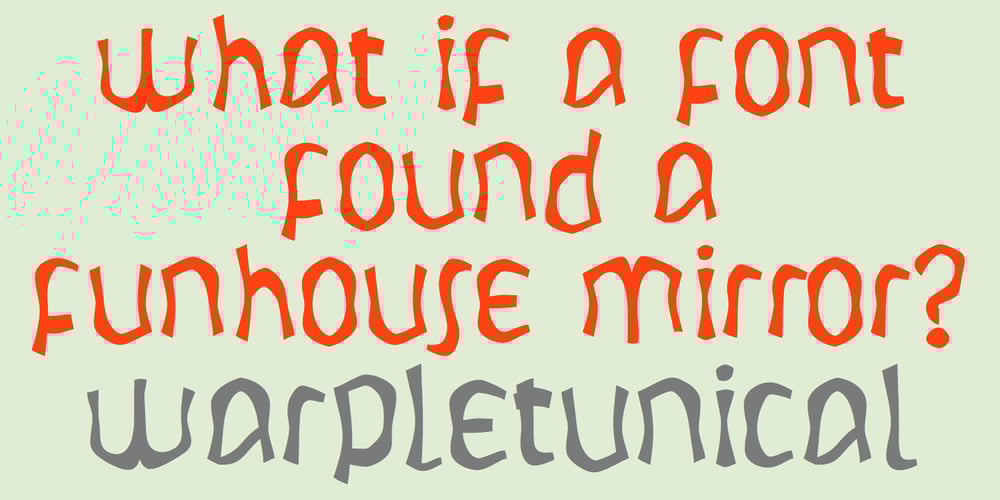
WarpLetunical
WarpLetunical font
WarpLetunical Font Family was designed by Robert Schenk and published by Ingrimayne Type. WarpLetunical contains 1 styles and family package options. A warped version of the font Letunical, WarpLetunical has a Halloweenish feel to it.